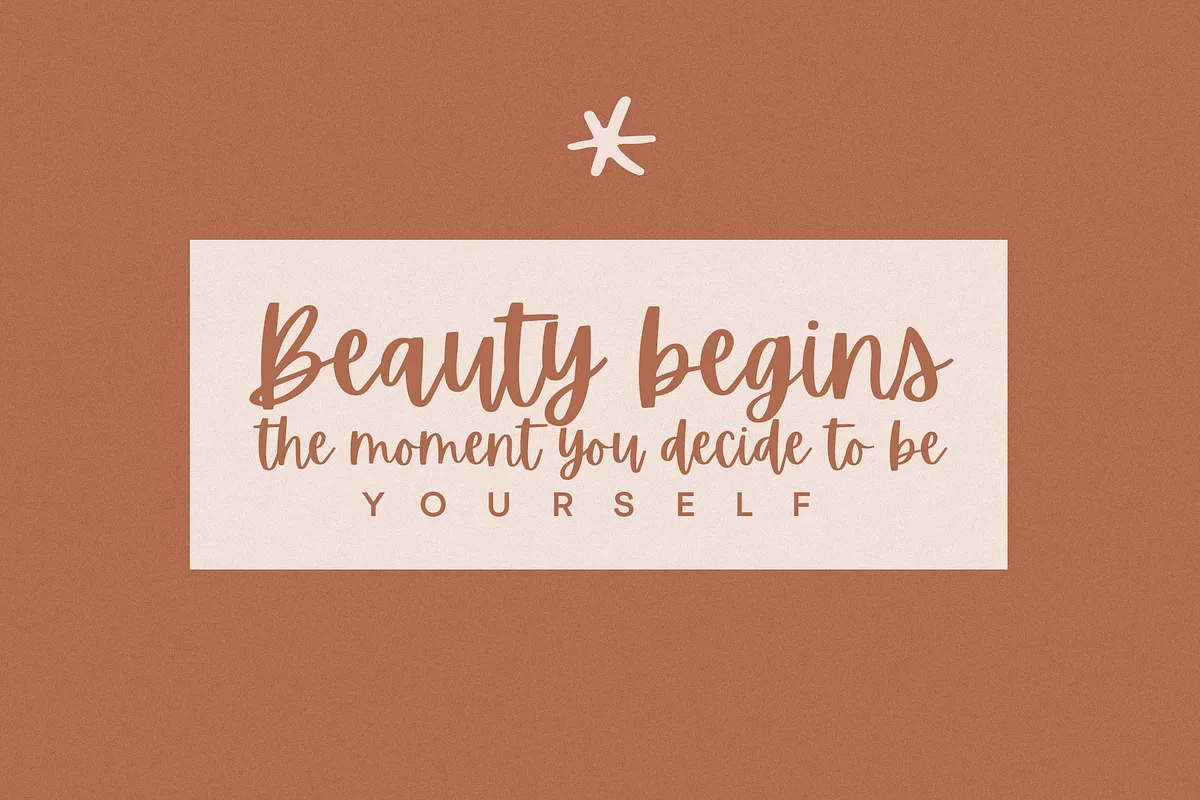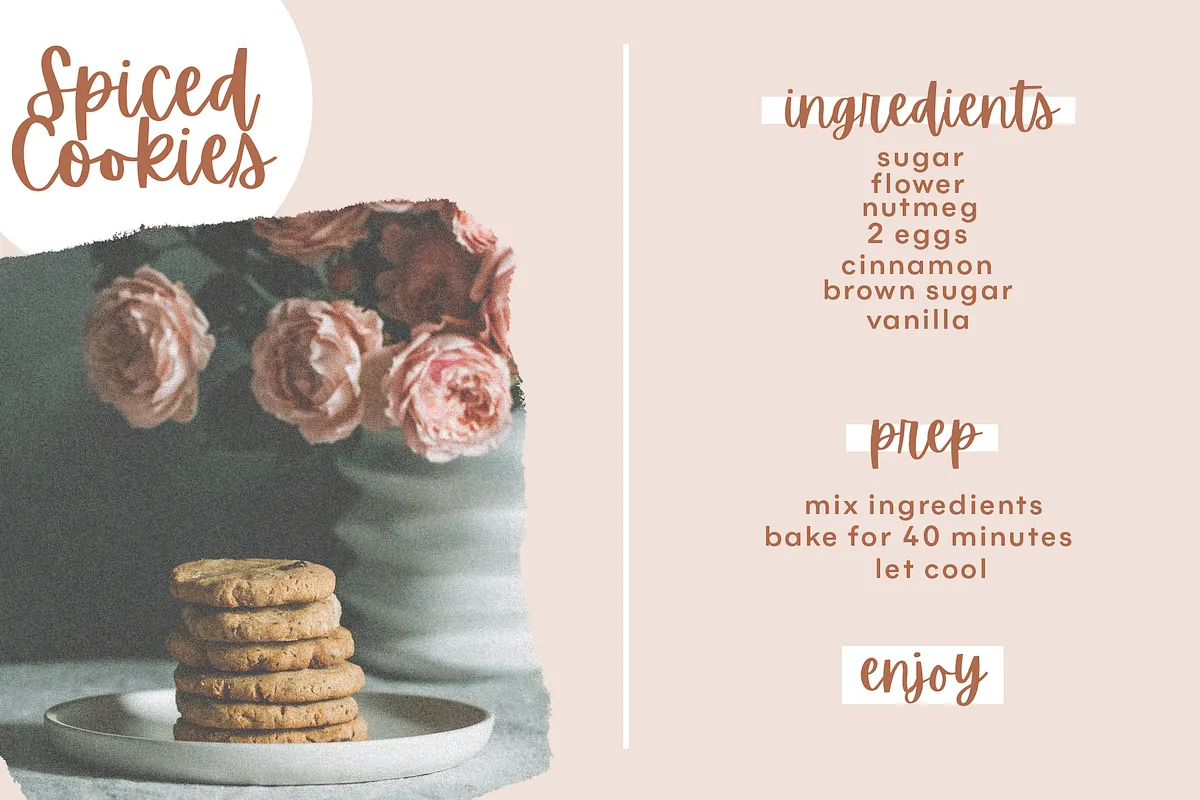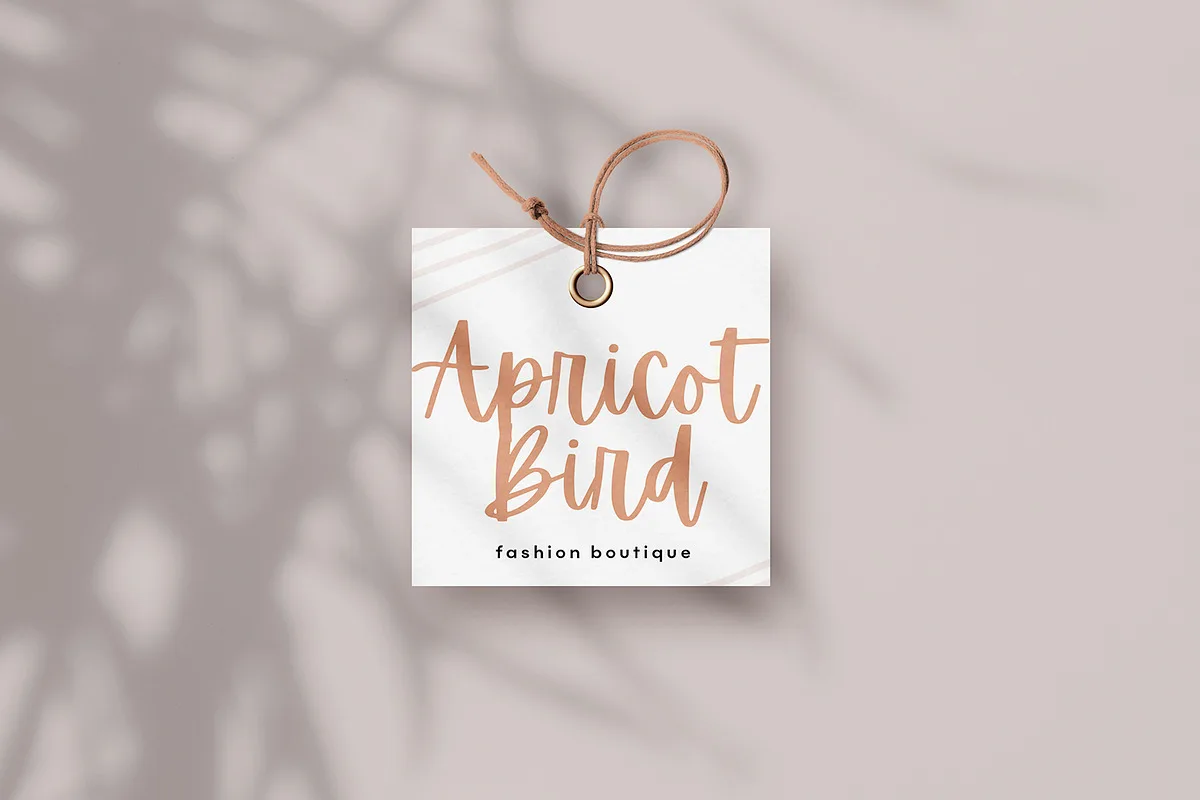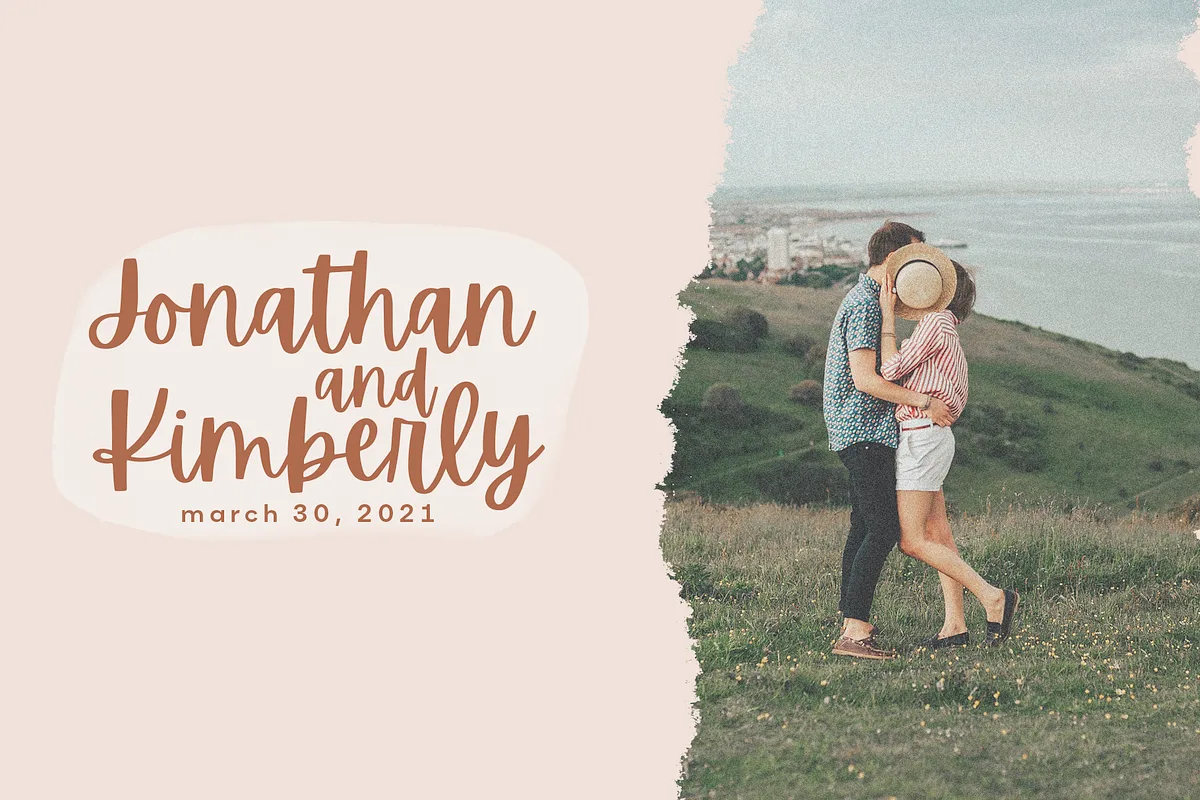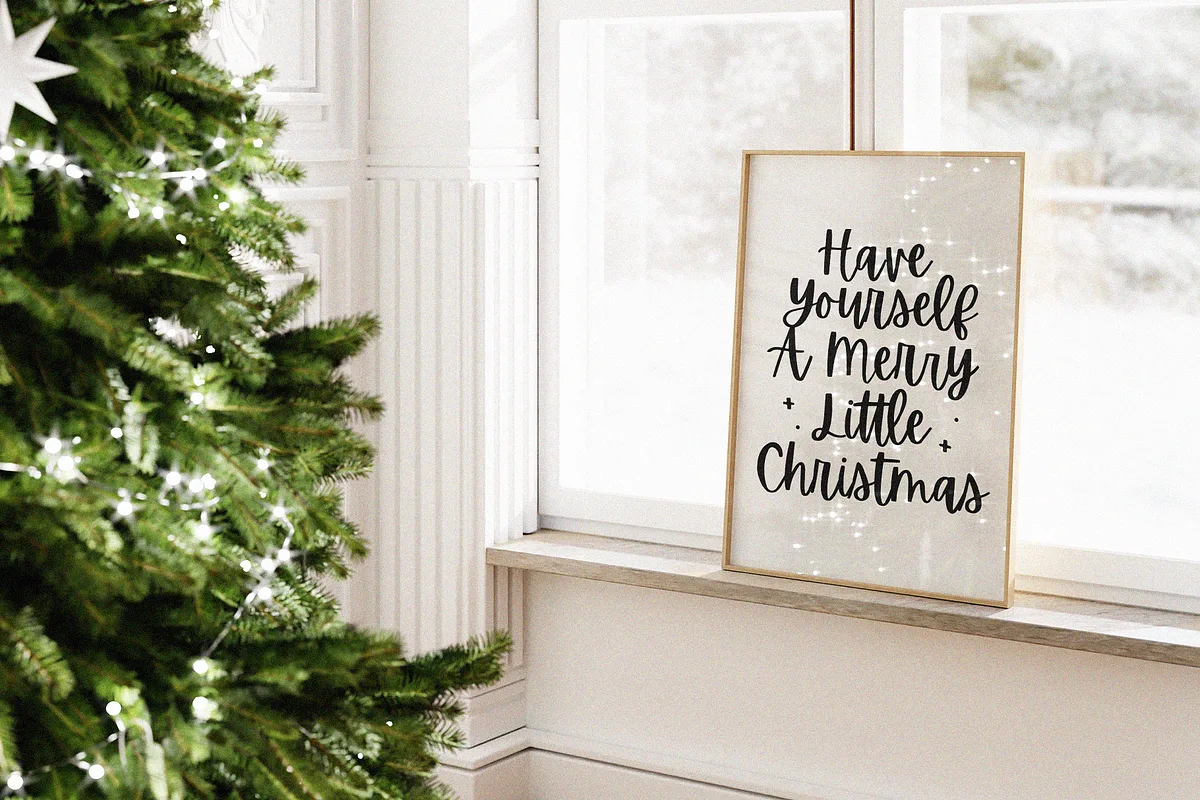
Apricots is a stylish and incredibly elegant handwritten font. It looks stunning on wedding invitations, thank you cards, quotes, greeting cards, logos, business cards, and every other design which needs a handwritten touch.
Apricots Font – Handwritten Script